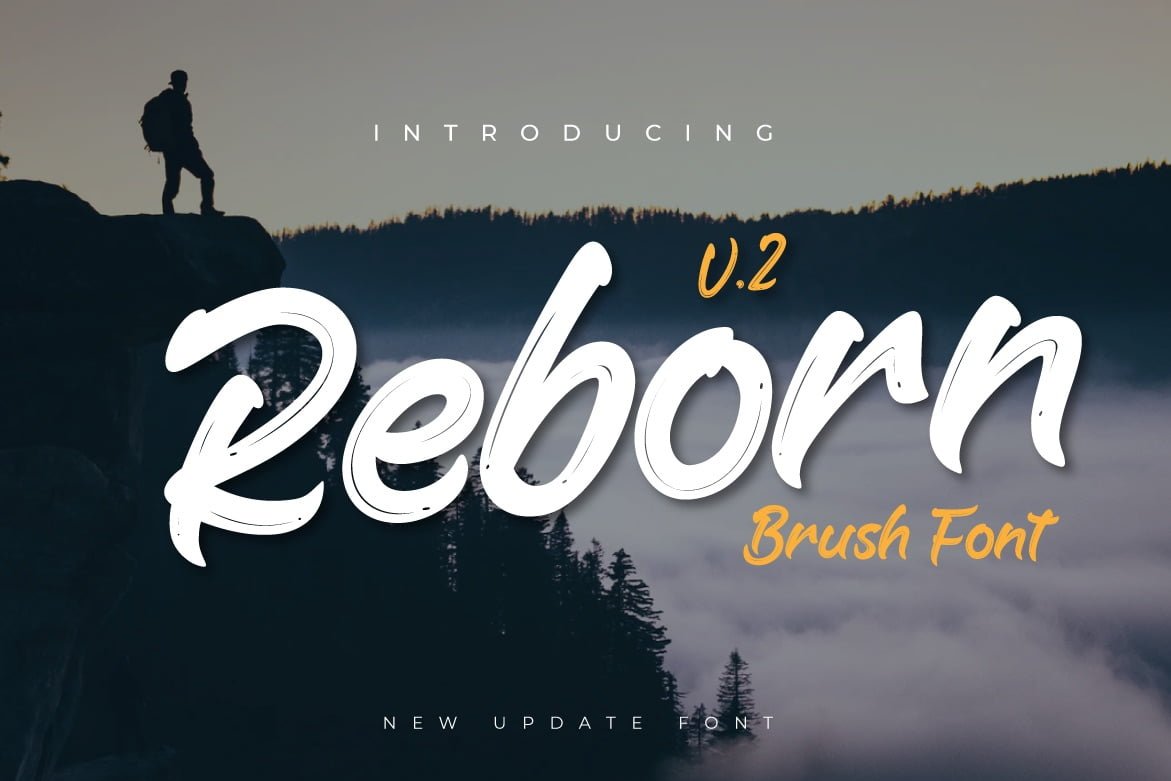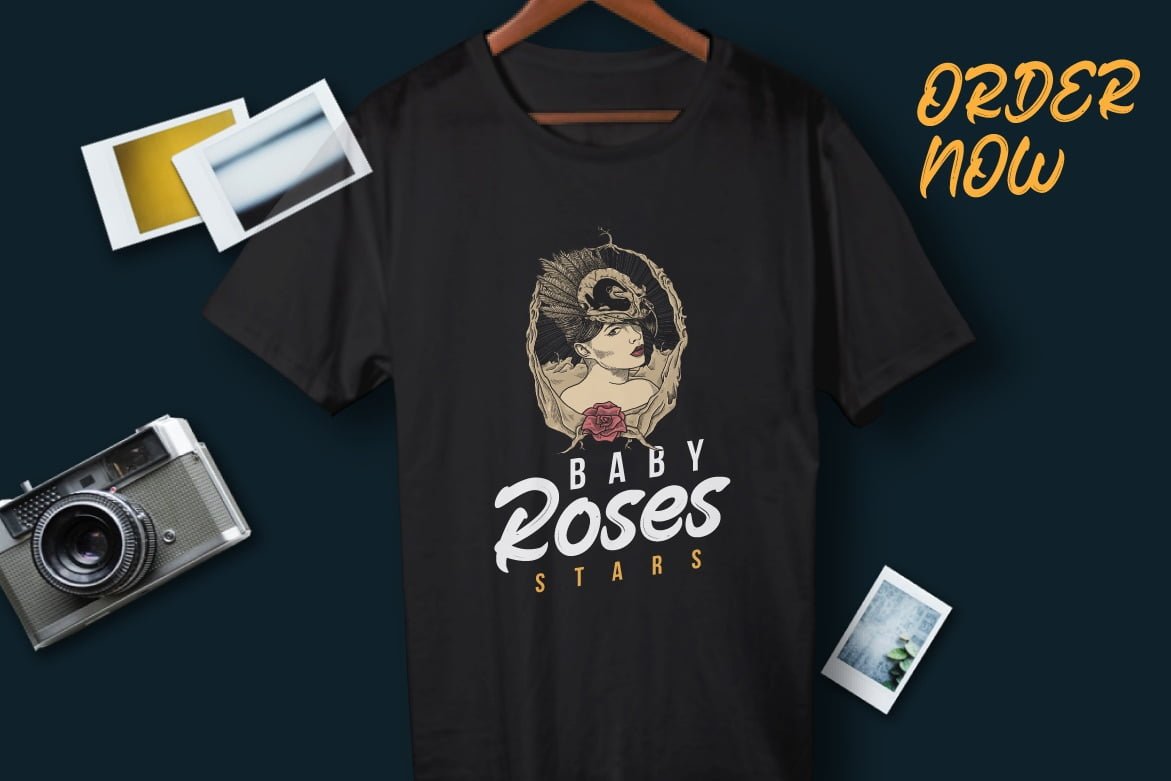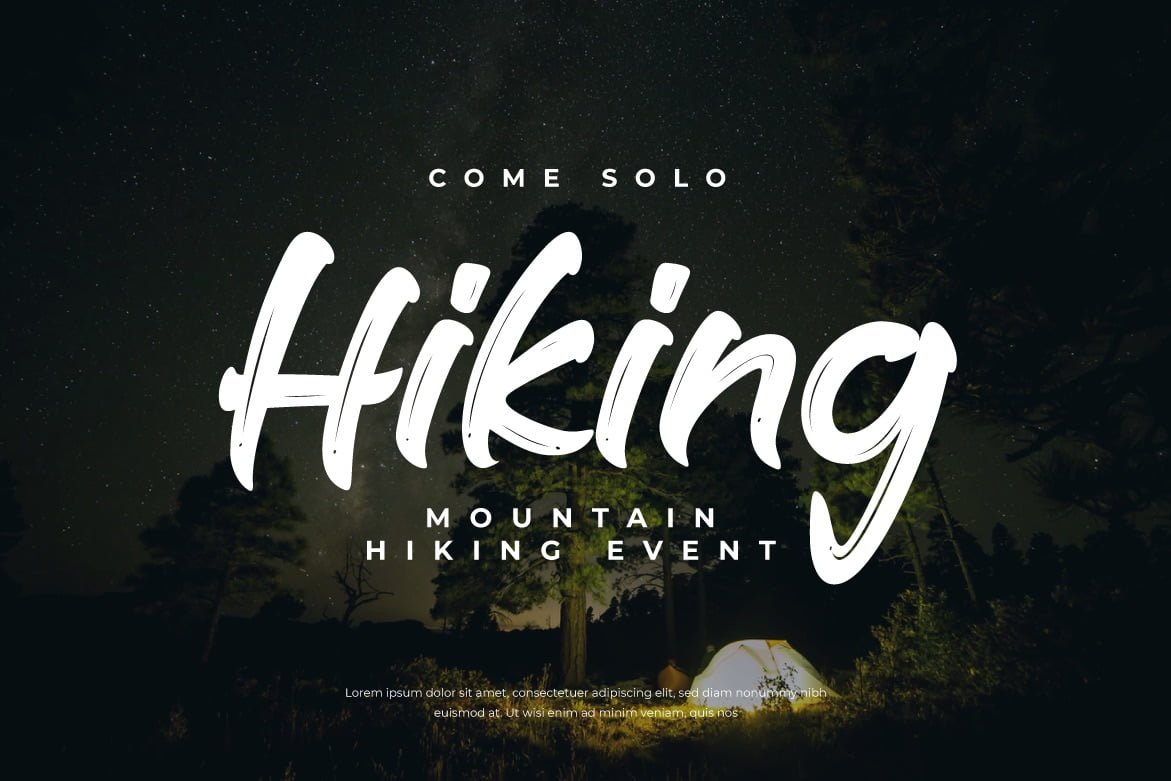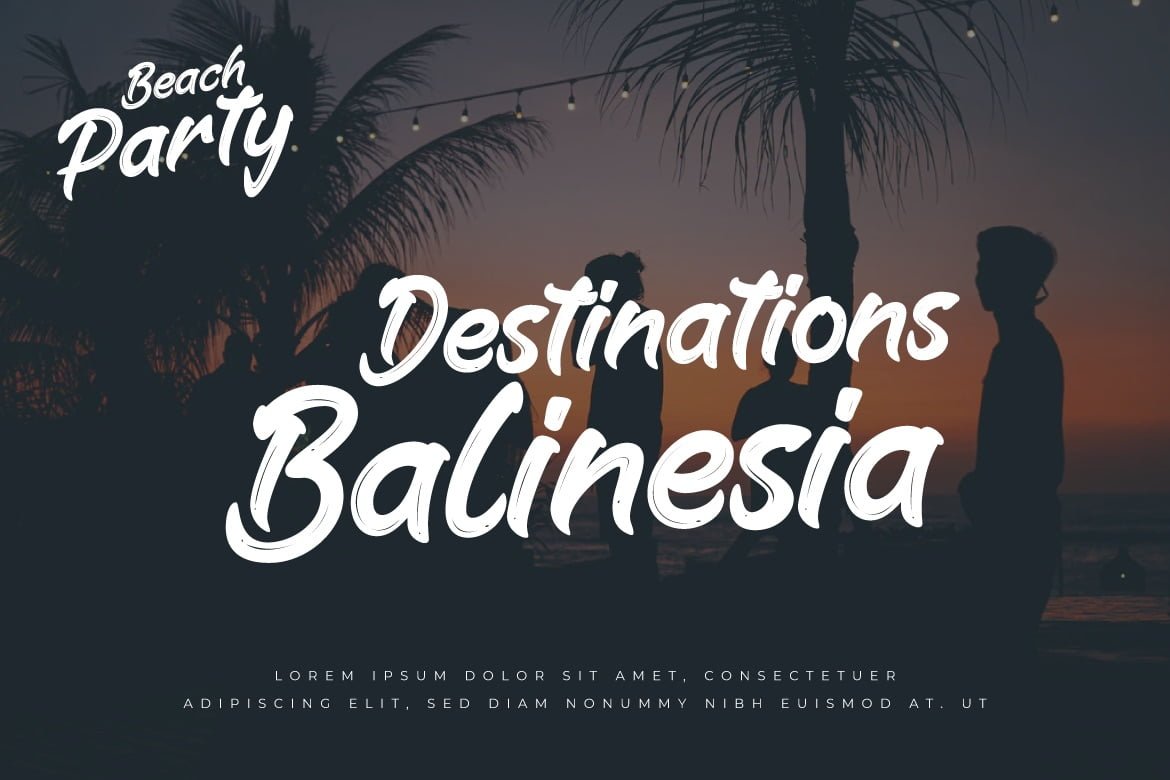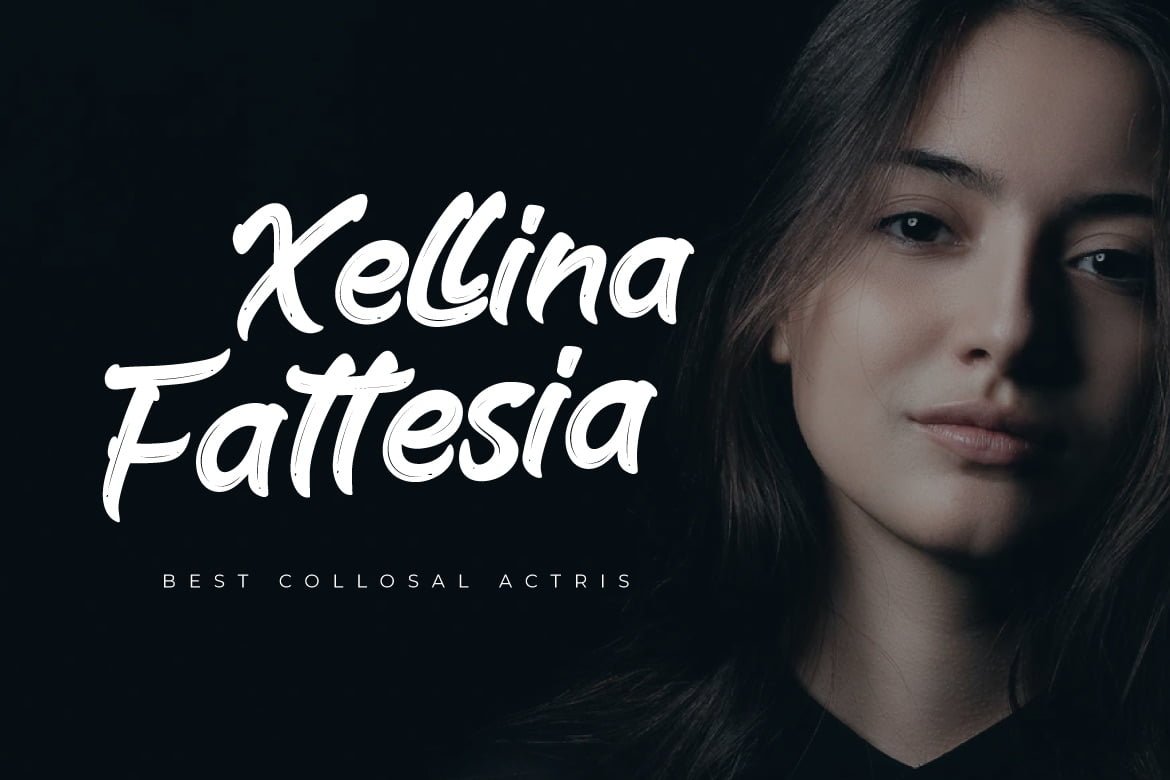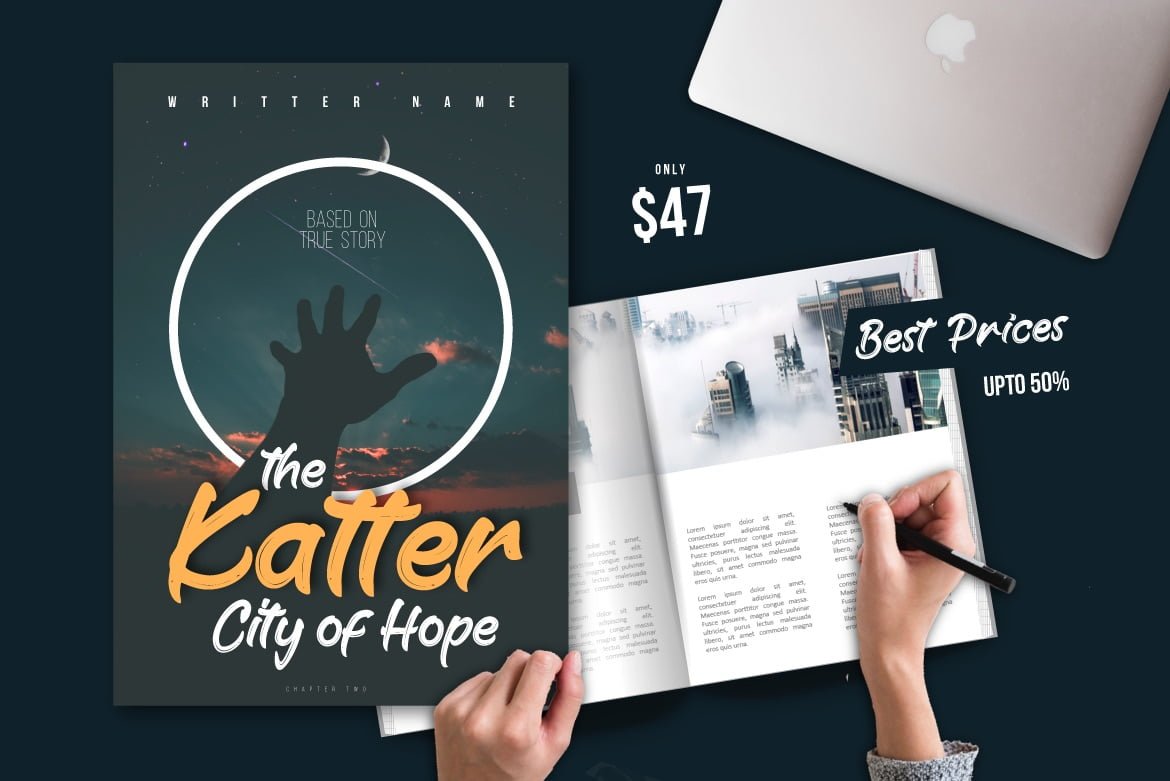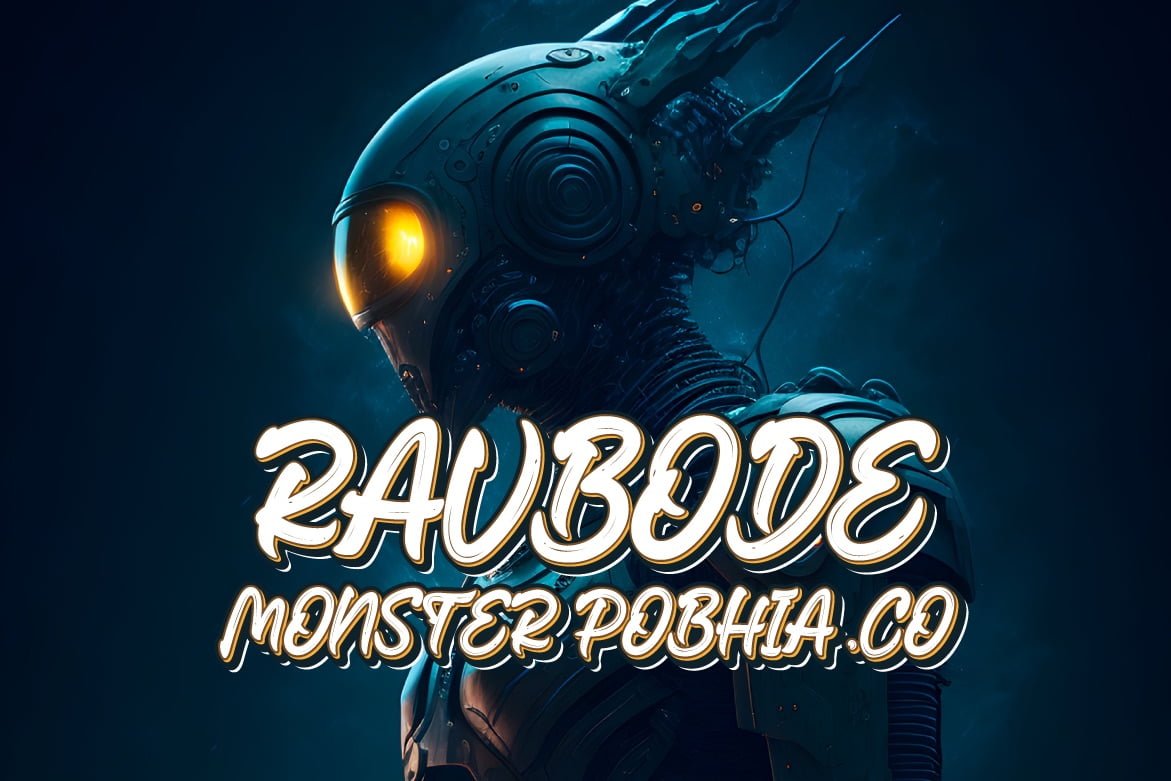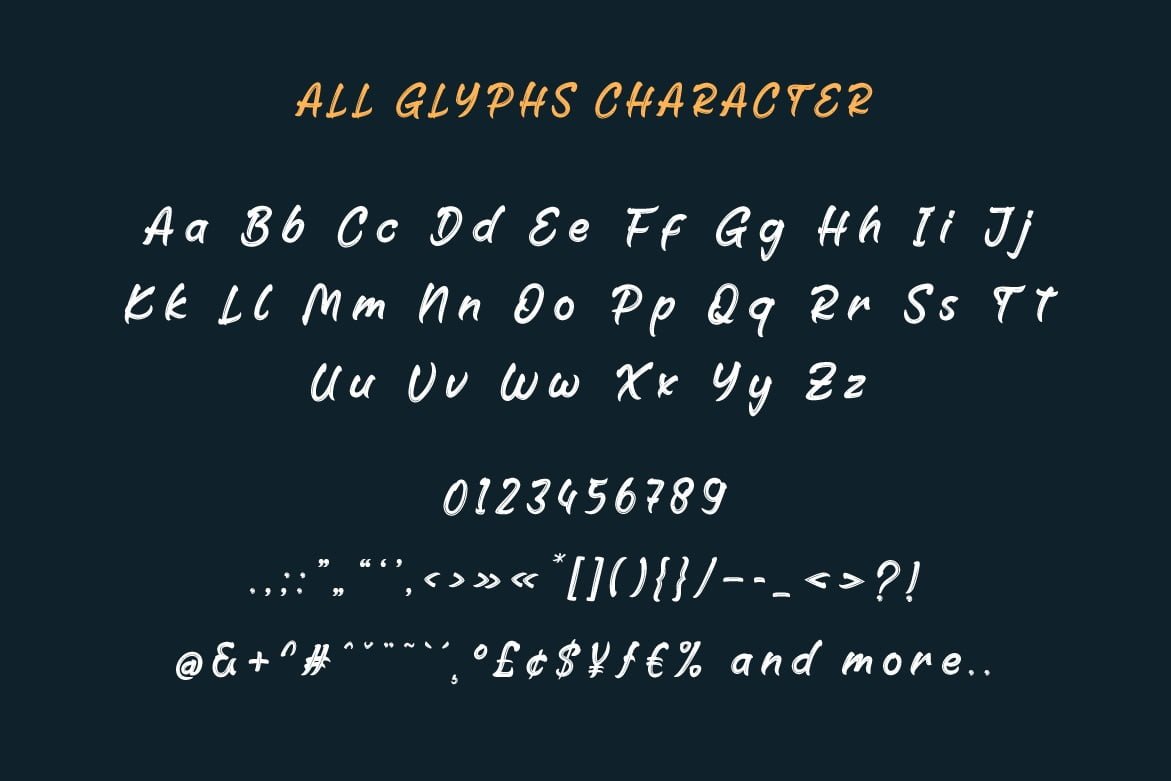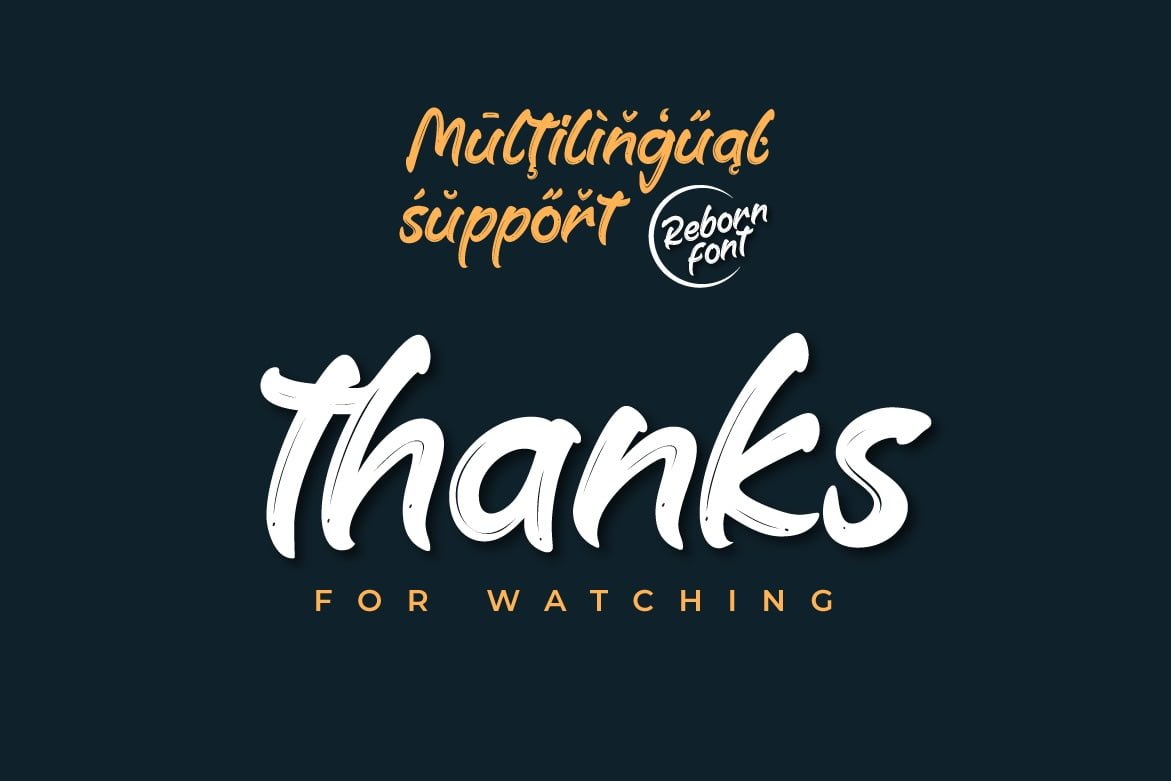
- Reborn – Brush Handwritten Font
Reborn is a revitalizing and energetic handwritten font. With strong sways and bold lines, this font brings a sense of freshness and courage. Ideal for projects looking for a spirited and refreshing appearance, such as merchandise designs, banners, or promotional materials aiming for a bold and innovative impression.